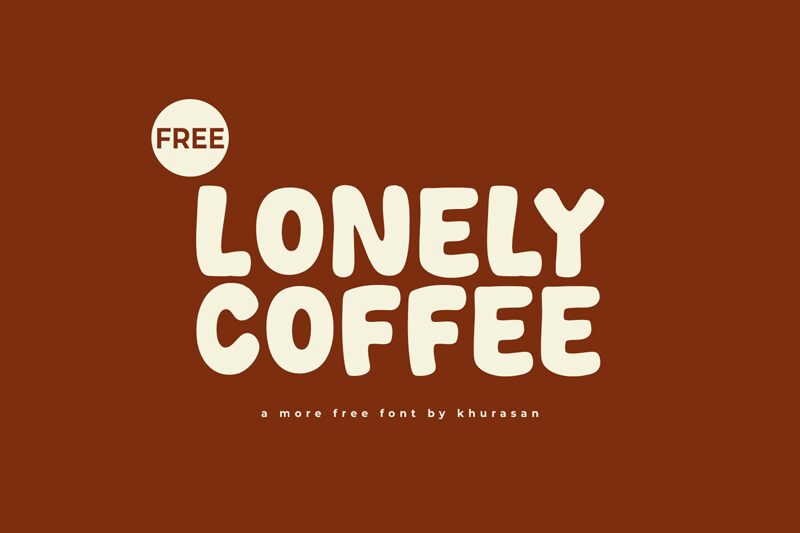
Lonely Coffee is a bold display font designed by Khurasan, capturing a whimsical, cartoonish essence that immediately draws the eye. Its playful curves and rounded edges exude warmth and approachability, making it perfect for engaging audiences in a fun way. The robust weight of the letters ensures visibility and impact, allowing it to stand out in any setting.
This font excels in creative spaces-ideal for café menus, playful branding, or vibrant event invitations. Its unique character makes it suitable for anything from children's products to casual marketing materials, inviting interaction and interest from viewers while enhancing the overall aesthetic charm of any design project.
Lonely Coffee